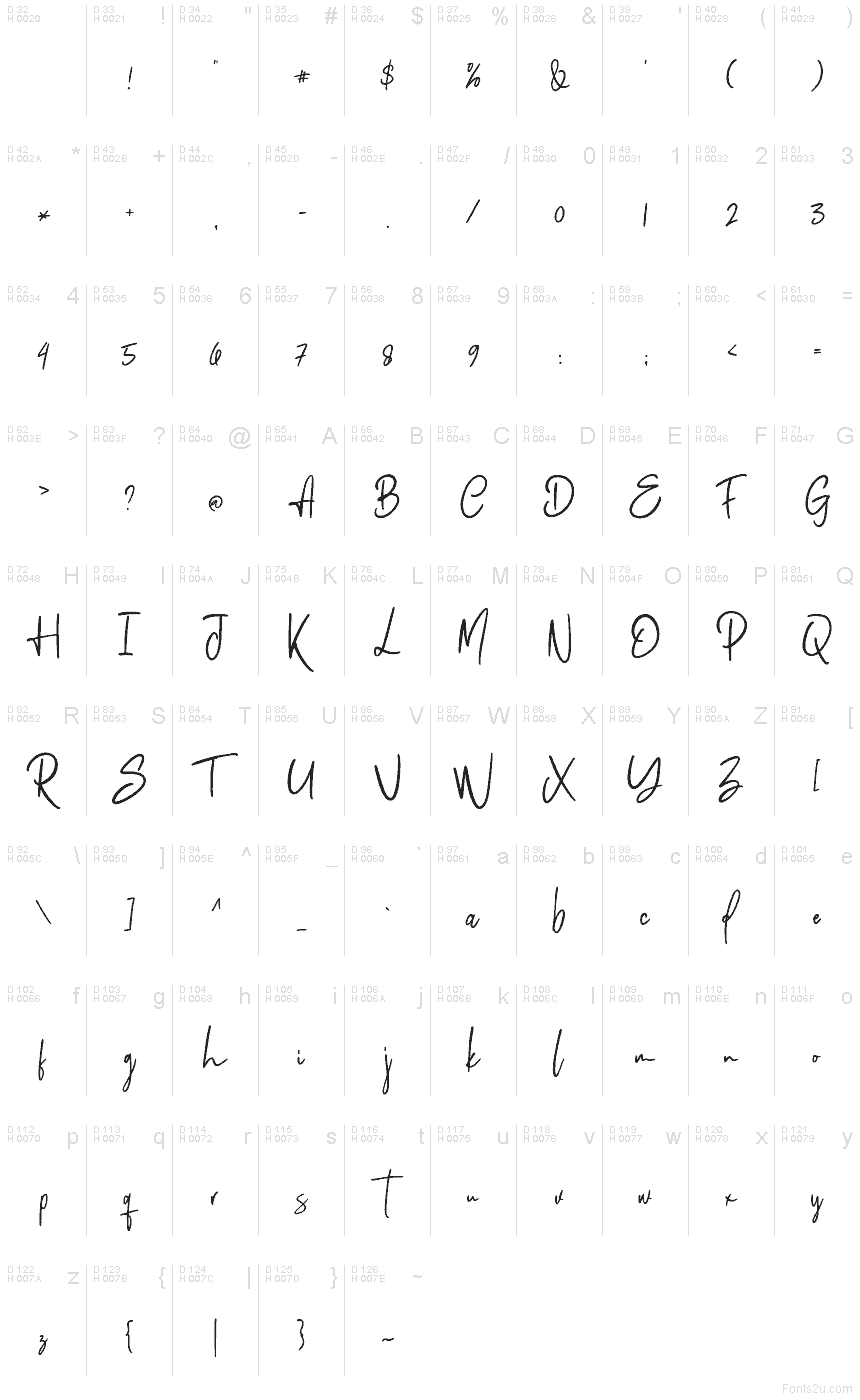
EdhustemSignature
Edhustem Signature font by Tebaltipis Studio is an elegant handwritten typeface with a modern, flowing aesthetic. This free signature font combines artistry with a personalized feel, making each letter appear as if crafted by hand on paper. Its unique and stylish design brings an artistic flair to any project.
Use it in branding projects, logo typography, packaging design, social media posts, digital ads, and poster headings. Edhustem Signature will also perform nicely in magazine headlines, card lettering creations like those of wedding invitations and business cards.